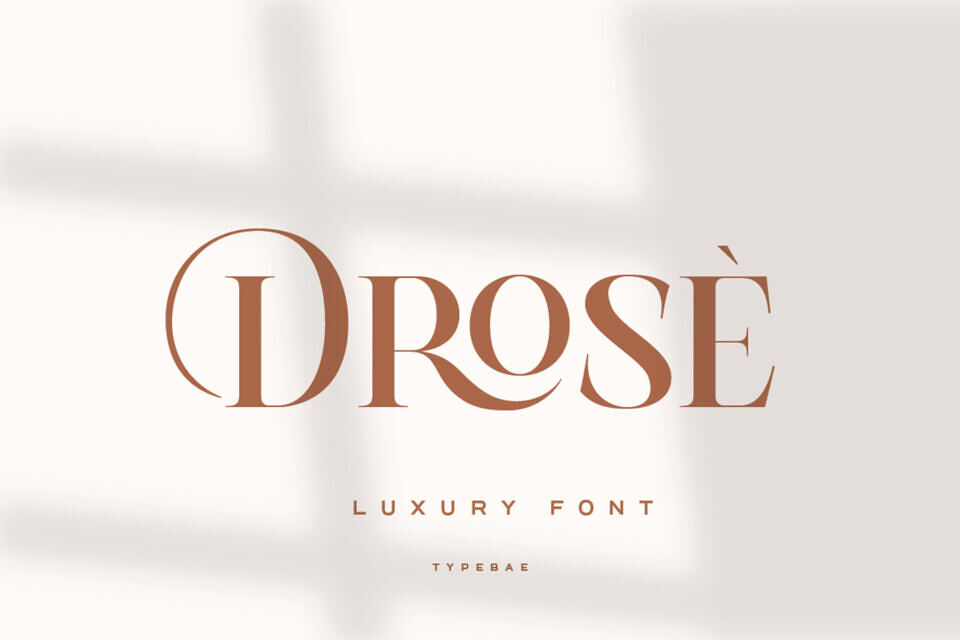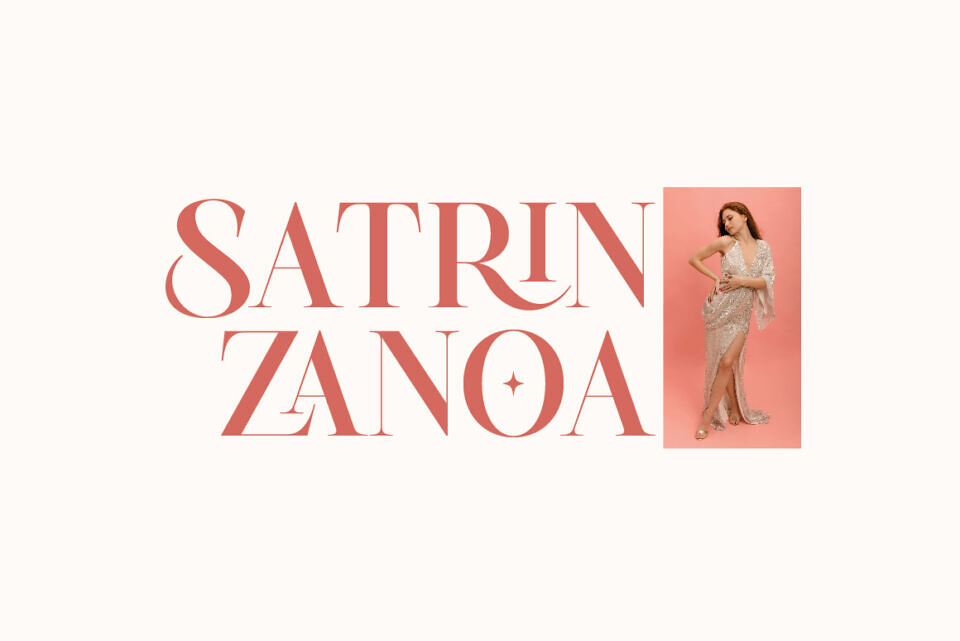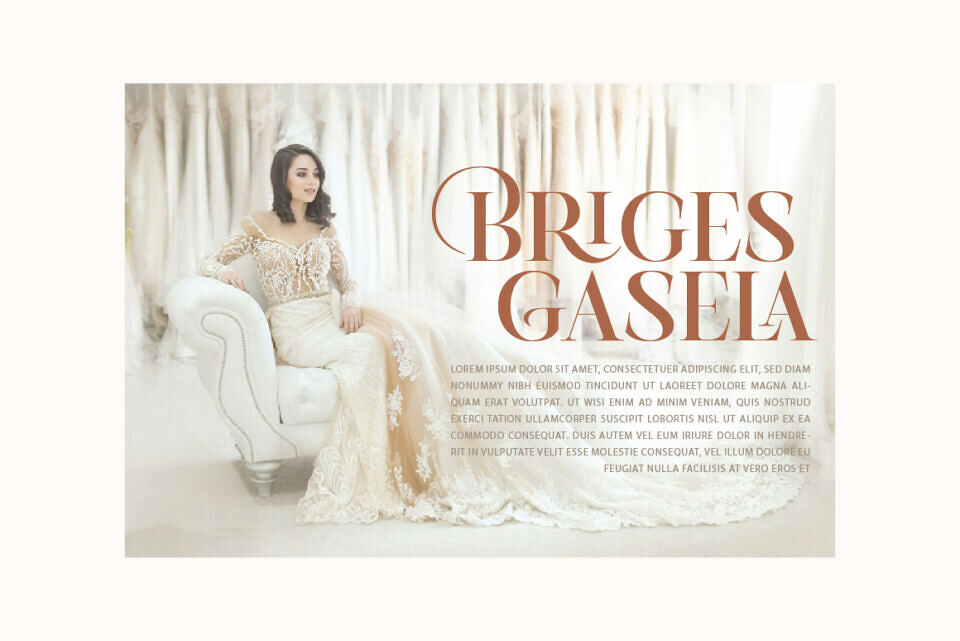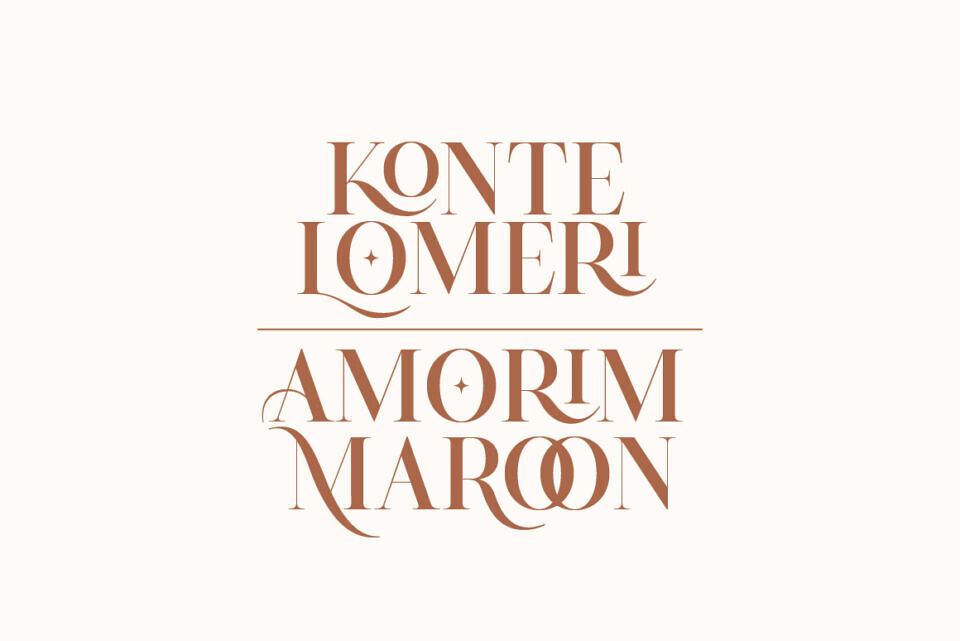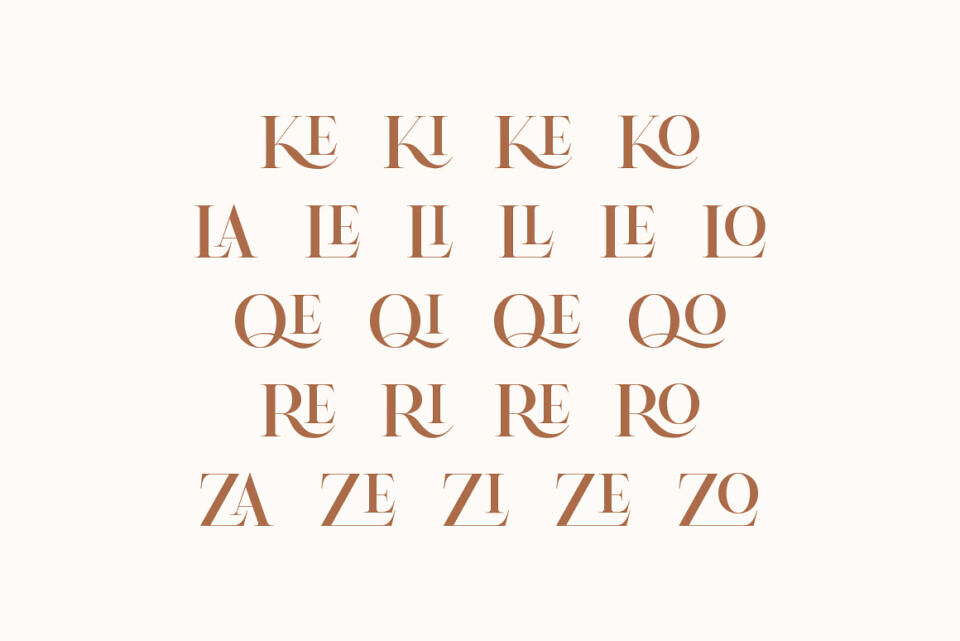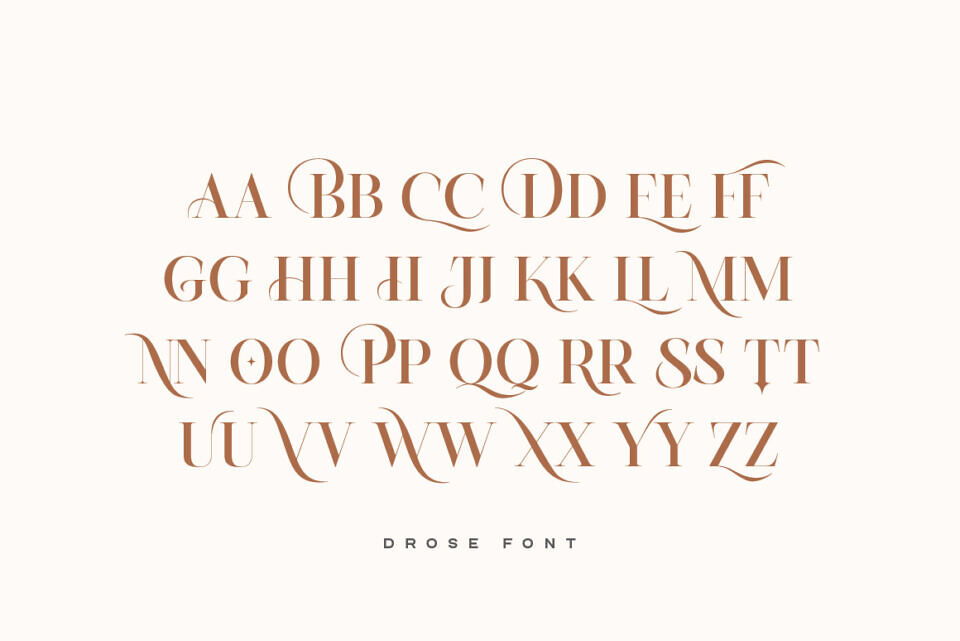
Drose Font
Drose is a modern luxury serif typeface with stylish curves and refined high contrast details. Designed to create an elegant and sophisticated visual presence, it is perfect for logos, fashion branding, editorial layouts, invitations, magazines, and premium packaging. Classy, clean, and expressive, Drose brings timeless beauty to contemporary design.